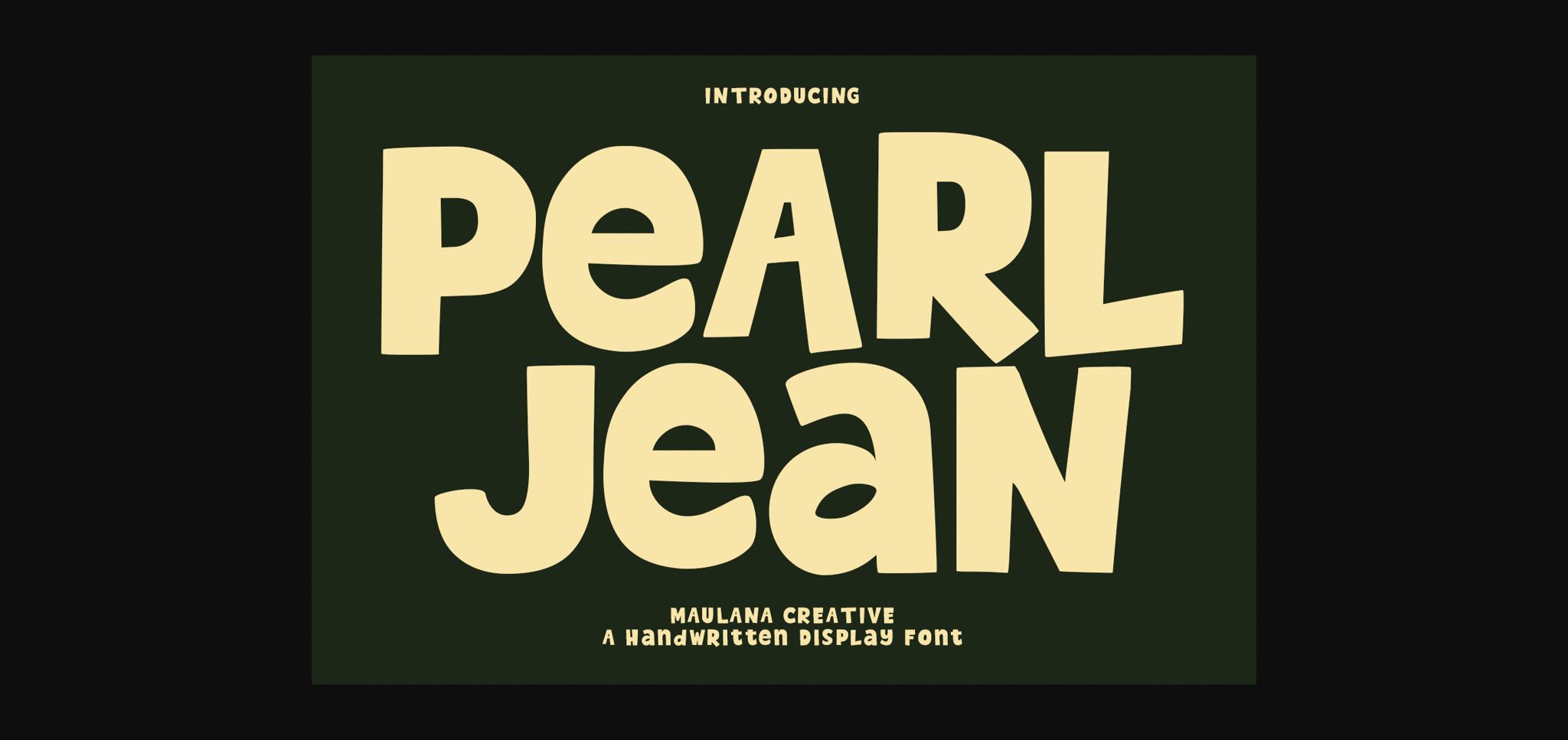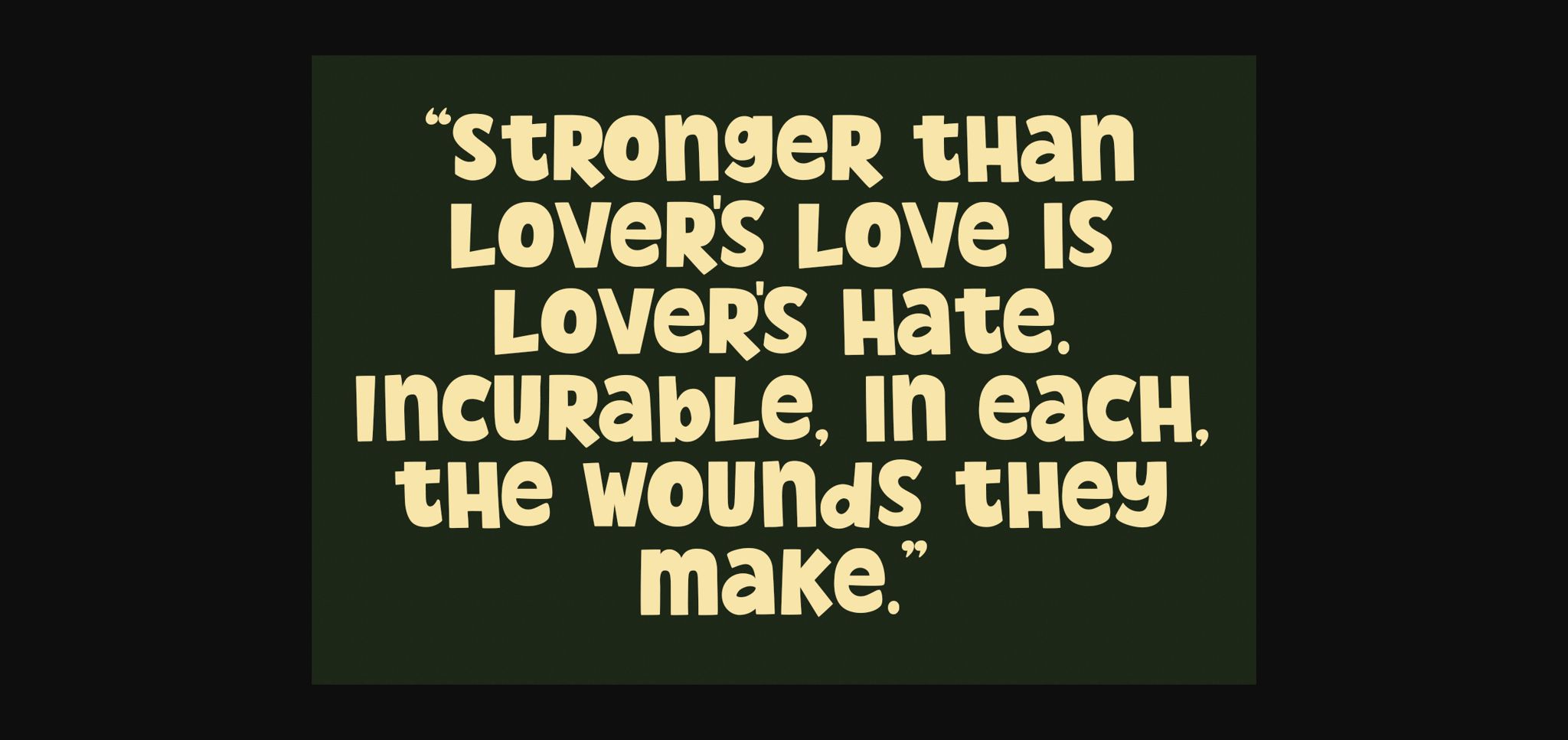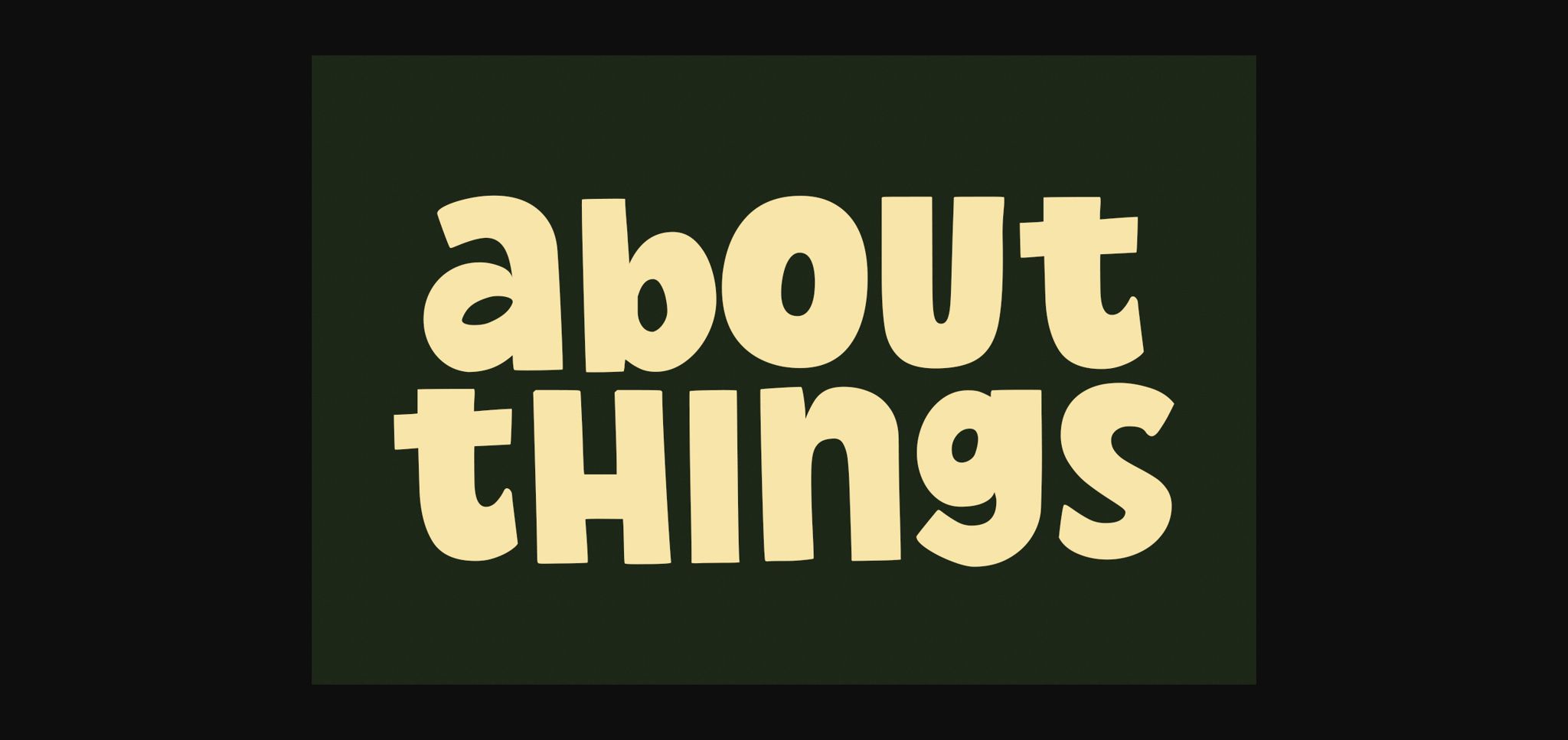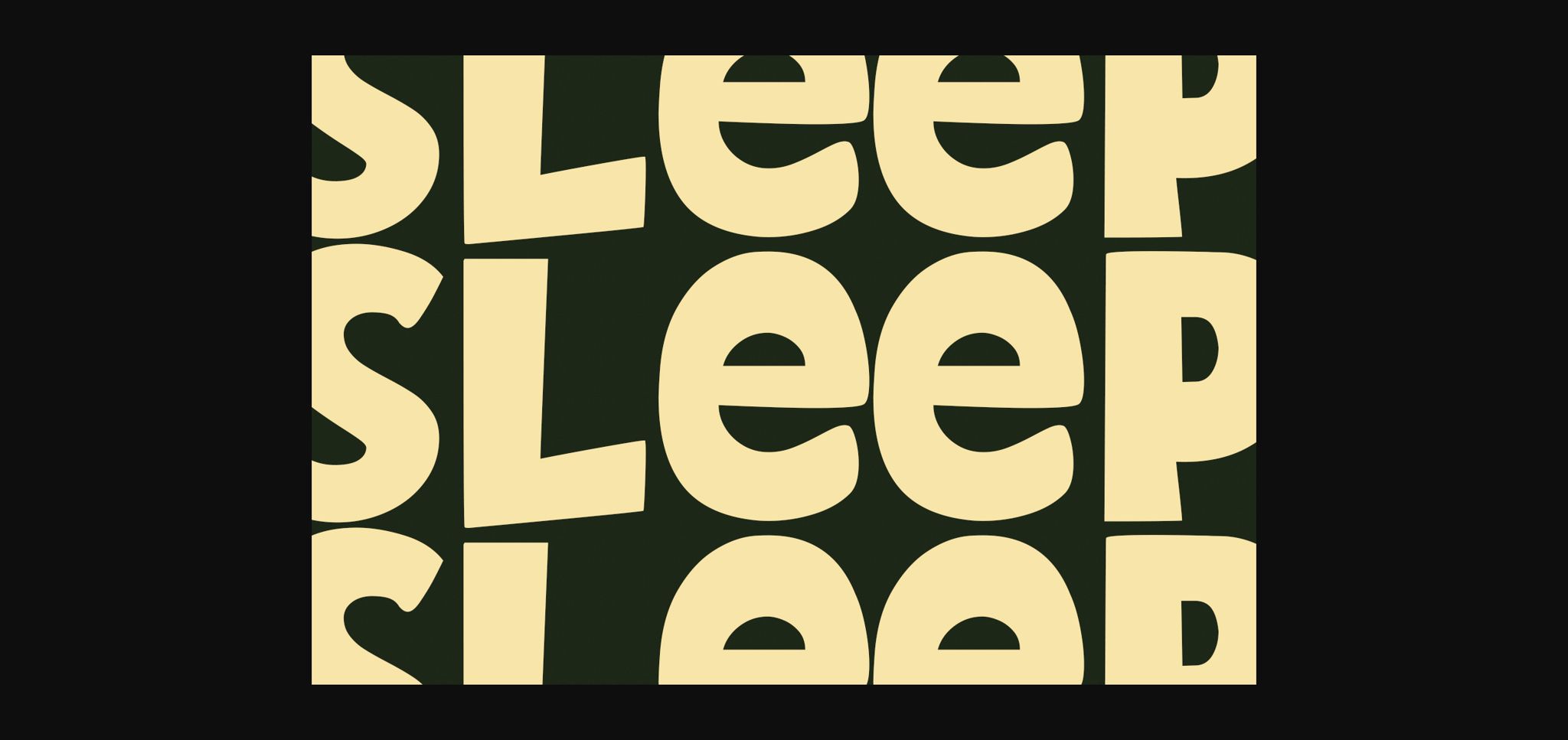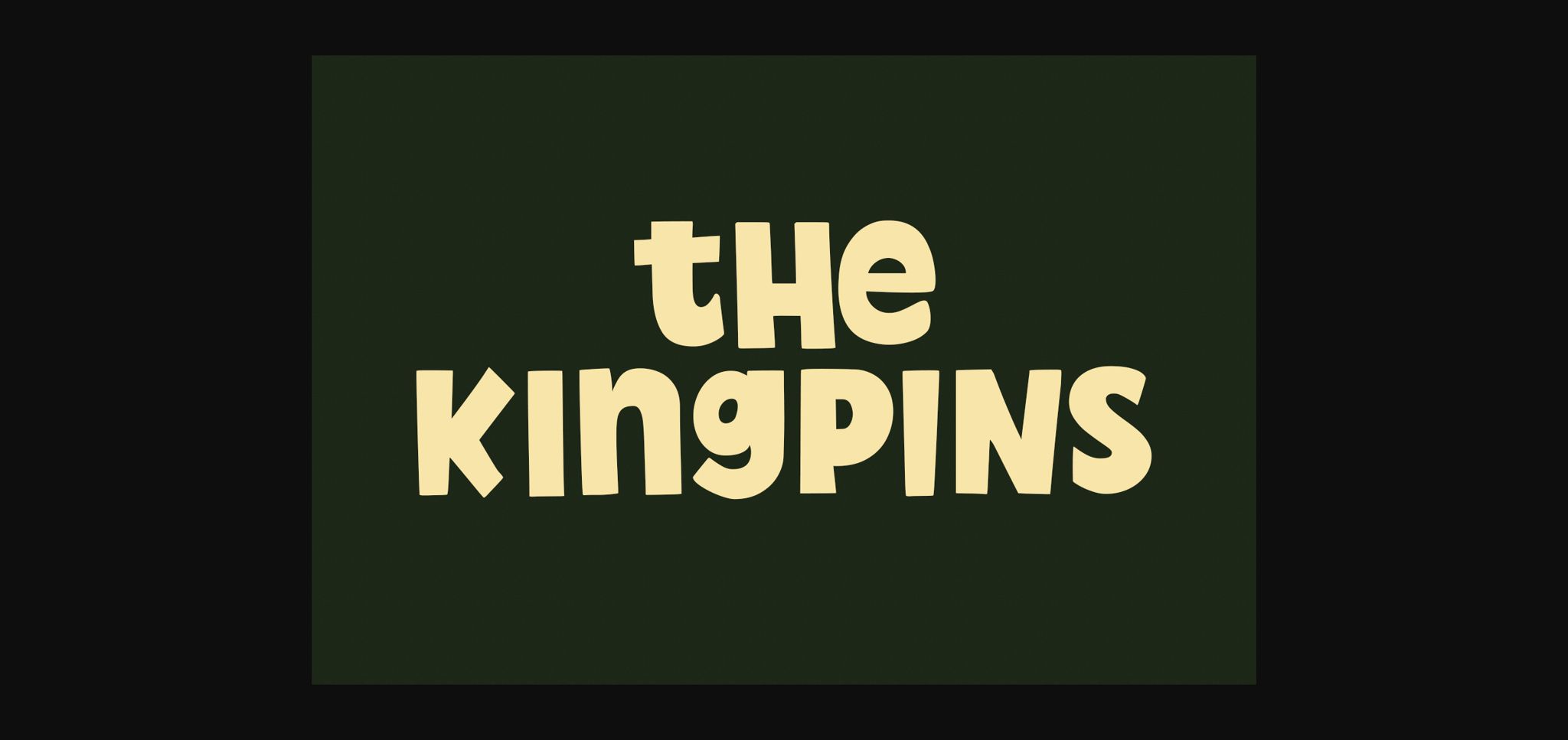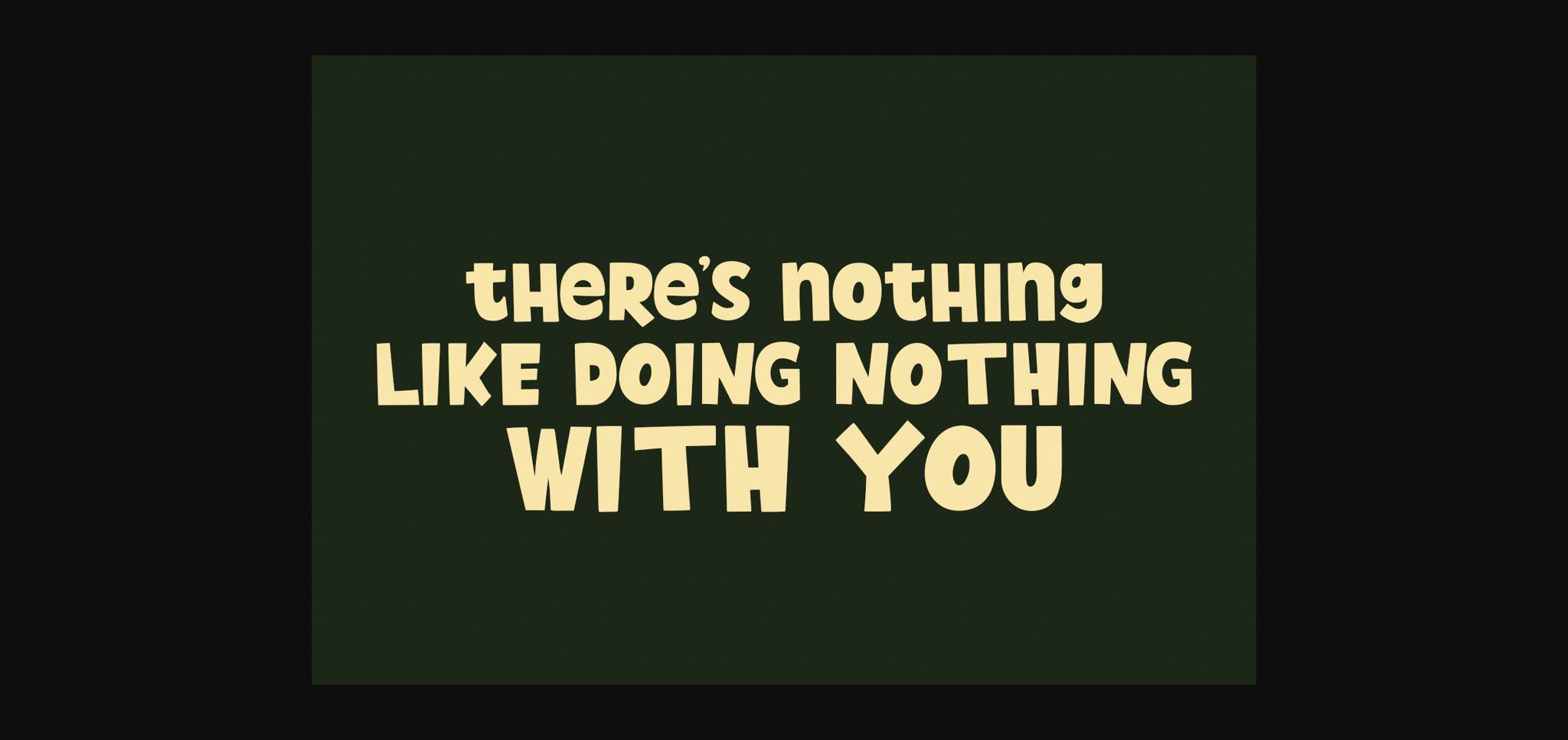
Pearl Jean is a fun and casual display font. No matter the topic, this font will be an incredible asset to your fonts’ library, as it has the potential to elevate any creation.